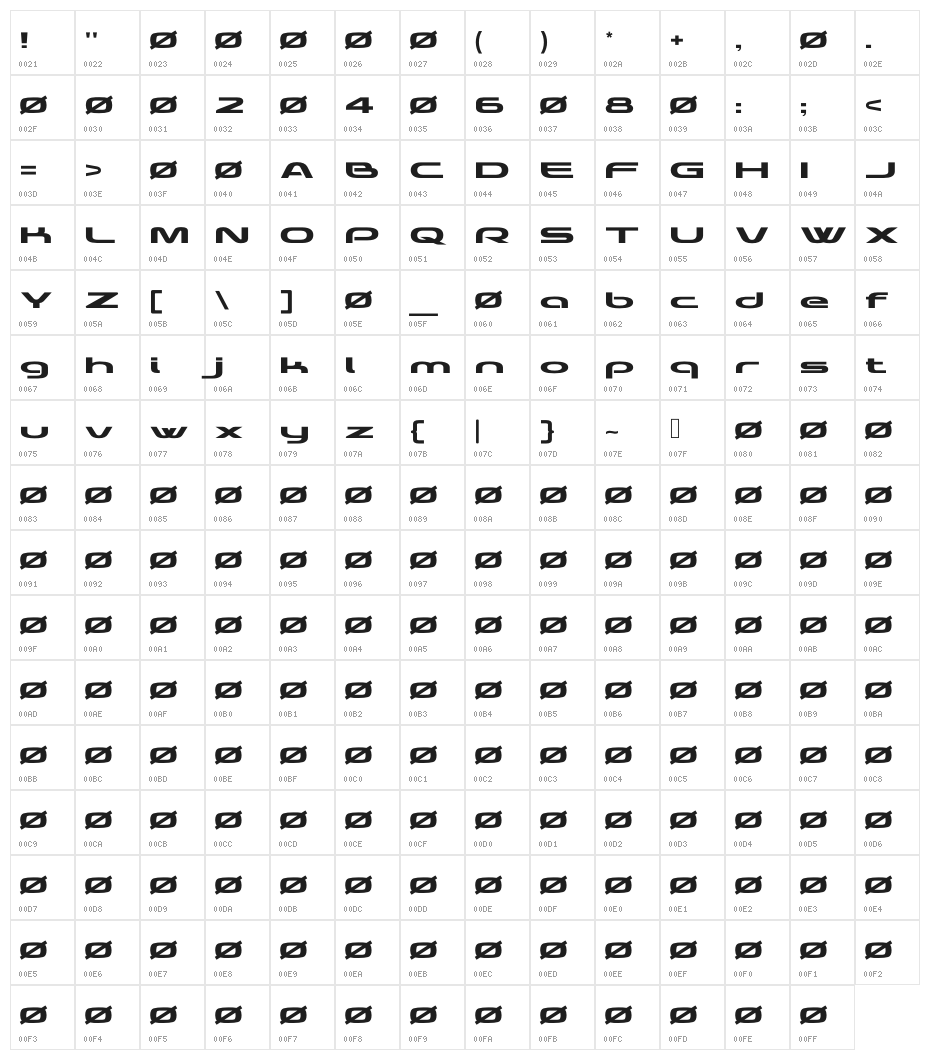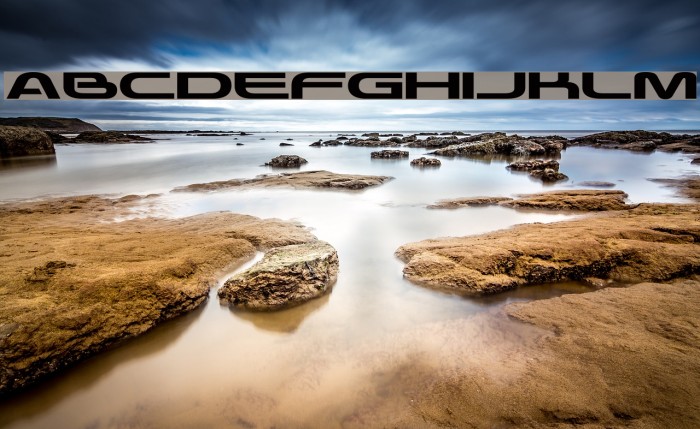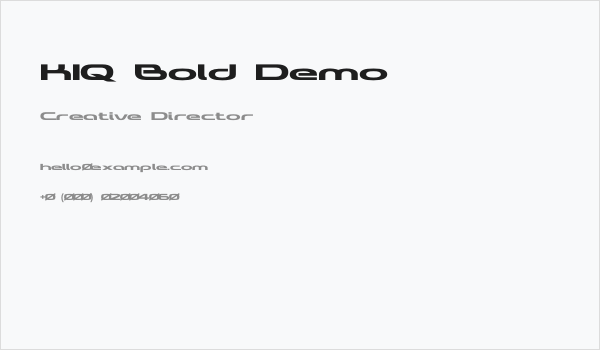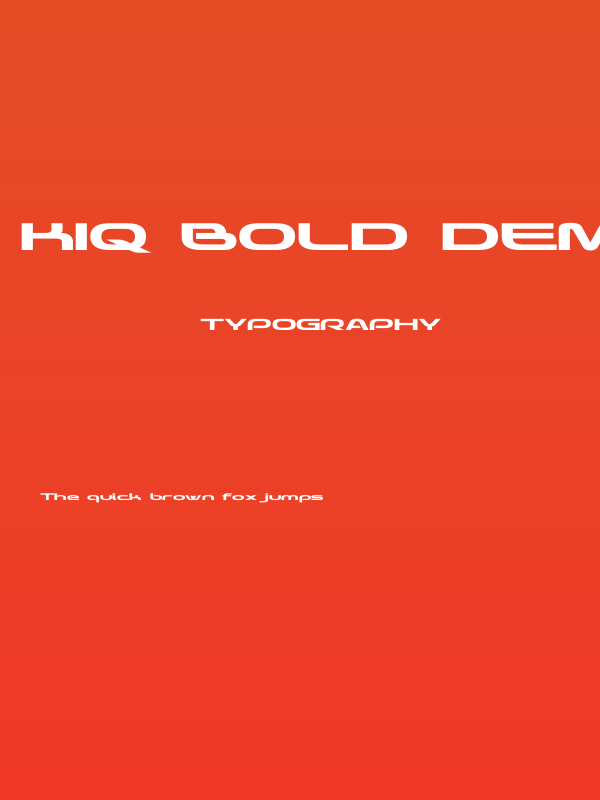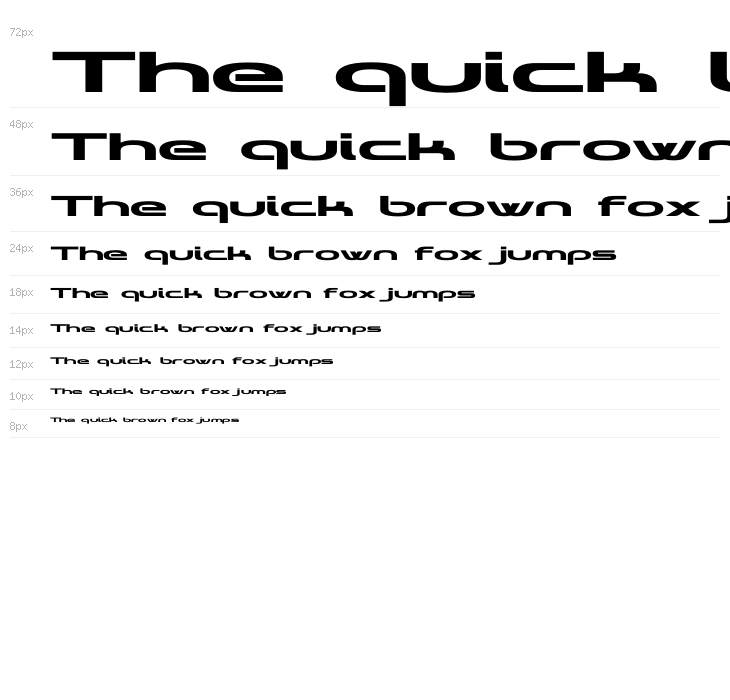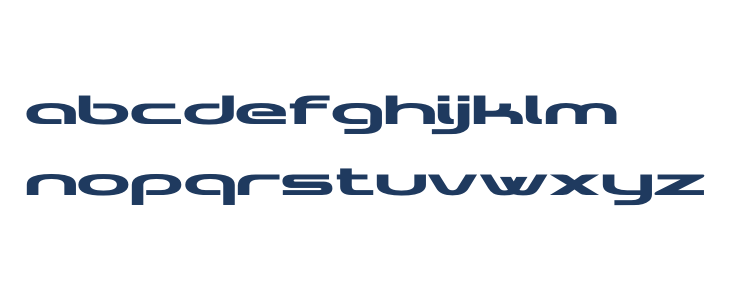
KIQ Bold Demo Font
KIQ Bold Demo Description
This font features a bold, futuristic design with a strong geometric influence. The characters are wide and have a distinct, angular appearance, giving them a modern and tech-inspired look. The uppercase letters are particularly striking, with sharp edges and a consistent height that creates a uniform appearance. The lowercase letters maintain the same angular style, ensuring cohesion throughout the typeface. Numbers and special characters follow the same design principles, making them easily recognizable and visually appealing. This font's boldness and unique style make it stand out, perfect for projects that require a modern and impactful aesthetic.
| Proposed Projects | Ideal for technology branding, sci-fi posters, video game titles, and modern logos. |